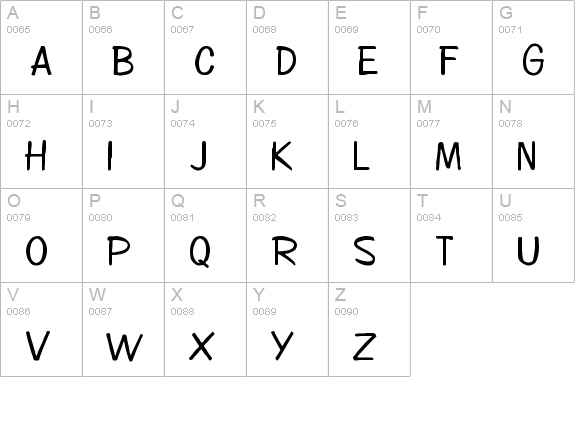
Tombola Font Details
Tombola font is a versatile and stylish typeface that exudes elegance and sophistication. Its sleek lines and modern design make it perfect for a wide range of projects, from branding to editorial layouts. With its clean, easy-to-read letterforms, Tombola font is sure to make your text stand out and grab attention. What's even better is that Tombola font is available for free download at FontsMarket.com. This means you can easily access this stunning font without any cost, making it a fantastic choice for designers looking to enhance their projects without breaking the bank. Don't miss out on this opportunity to elevate your designs with the beautiful Tombola font – download it for free today!